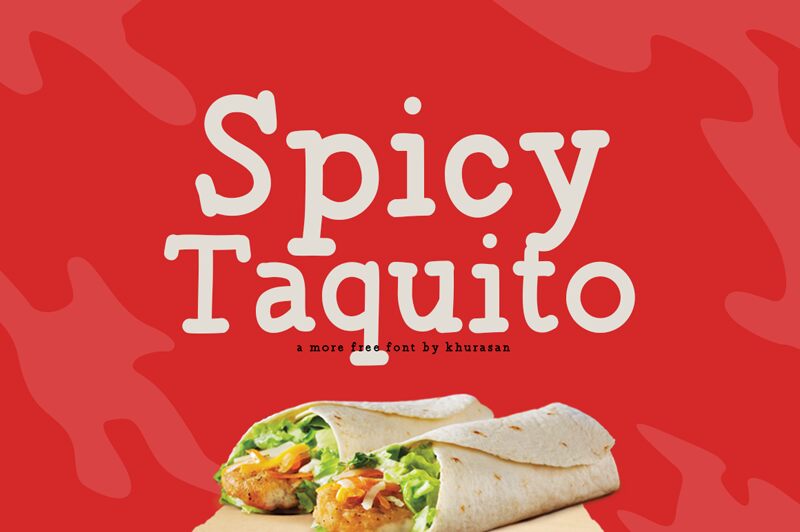
Spicy Taquito
Spicy Taquito, designed by Khurasan, is a modern and cute display font that adds a touch of playfulness to any design. With its clean lines and unique character shapes, this sans serif font is perfect for a wide range of projects.
Use it to create eye-catching posters, captivating logos, stylish magazine layouts, captivating book covers, attention-grabbing banners, and so much more! Let Spicy Taquito elevate your creative ideas and make them truly stand out with its charm and versatility.